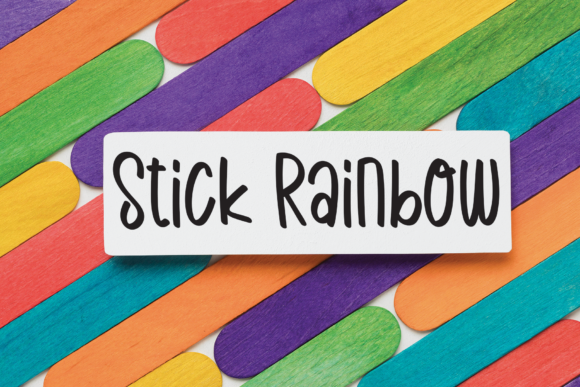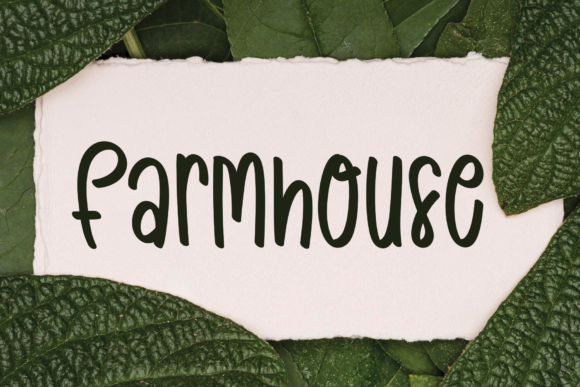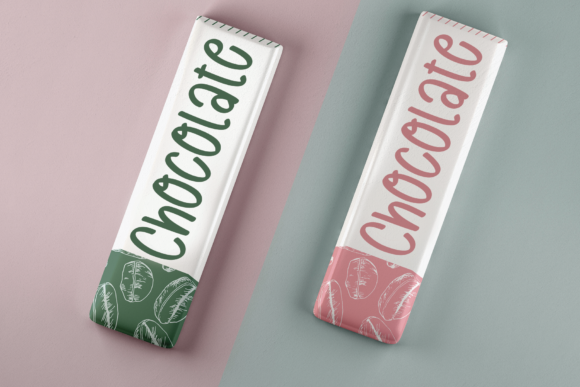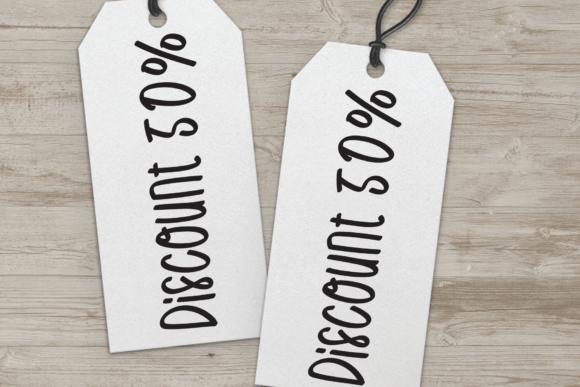
Summer is Coming Font
About Summer is Coming Font
Summer is Coming is a clean, adaptable and trendy handwritten font. No matter the topic, this font will be an incredible asset to your fonts’ library, as it has the potential to elevate any creation.